bullet journal fonts: Adding Creativity to Your BuJo
A bullet journal is a versatile and customizable system that allows you to keep track of your tasks, goals, and ideas. One of the key elements of a bullet journal is the use of different fonts. Fonts can add a creative touch to your journal and make it more visually appealing. In this article, we will explore the world of bullet journal fonts and provide tips for incorporating them into your journal.
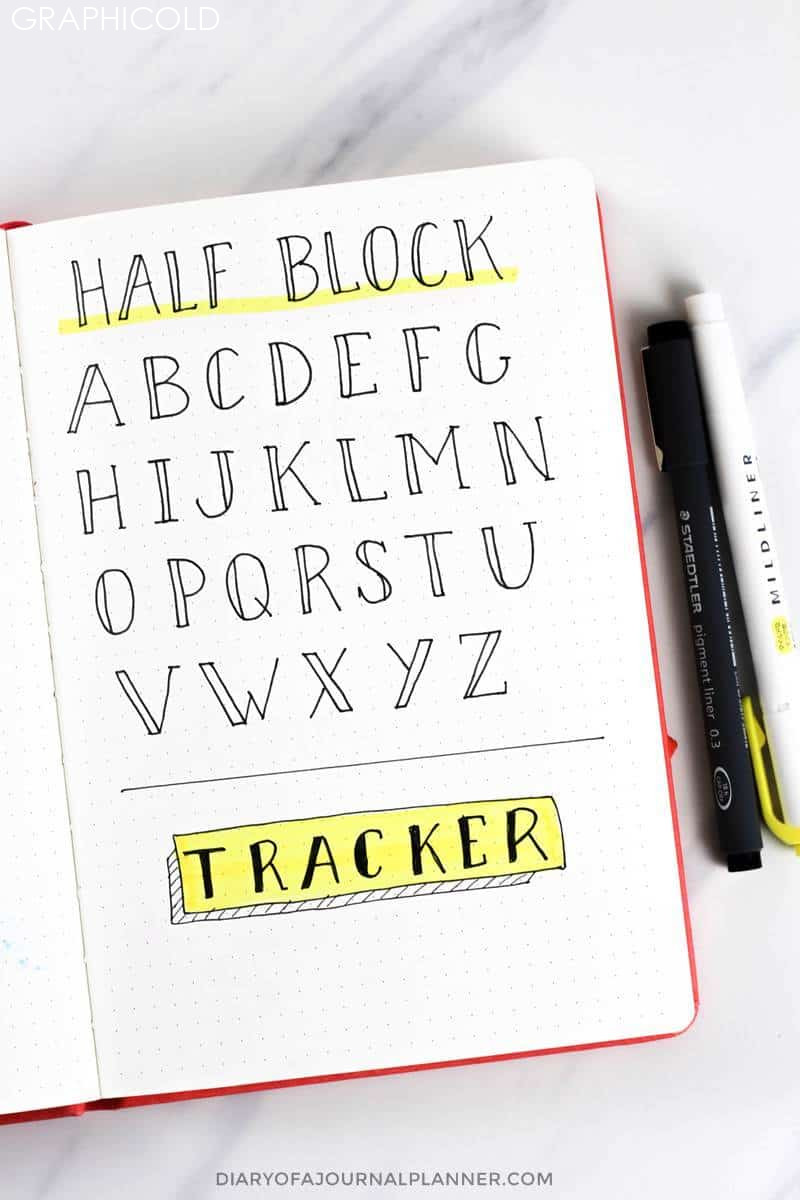
Firstly, it’s important to understand what fonts are and how they can enhance your bullet journal. Fonts refer to the different styles of writing that you can use in your journal. They can range from simple and minimalistic to intricate and decorative. By using different fonts, you can create headings, subheadings, and titles that stand out and draw attention to important sections of your journal.
When choosing fonts for your bullet journal, it’s essential to consider readability. While decorative fonts can be visually appealing, they may be difficult to read, especially in smaller sizes. It’s best to use easy-to-read fonts for your main content and reserve decorative fonts for accentuating headings and titles. Experiment with different font combinations to find the right balance between readability and creativity.
To use fonts in your bullet journal, start by creating a font key. This will serve as a reference guide for the different fonts you plan to use. Assign a symbol or code to each font and include it in your key. For example, you can use an asterisk (*) for your main content font, a plus sign (+) for your heading font, and a triangle (∆) for your decorative font. This key will make it easier for you to switch between fonts while journaling.
When using different fonts, consistency is key. Try to limit the number of fonts you use to maintain a cohesive look throughout your journal. Stick to a color palette that complements your fonts and add embellishments, such as borders or illustrations, to enhance the overall aesthetic.
Incorporating bullet journal fonts can take your journaling experience to a new level. It allows you to express your creativity and make your journal a reflection of your personal style. So, don’t be afraid to experiment with different fonts and find those that resonate with you. Whether you prefer bold and modern fonts or elegant and script-like ones, the options are endless. Let your imagination soar and create a bullet journal that is not only functional but also visually stunning.